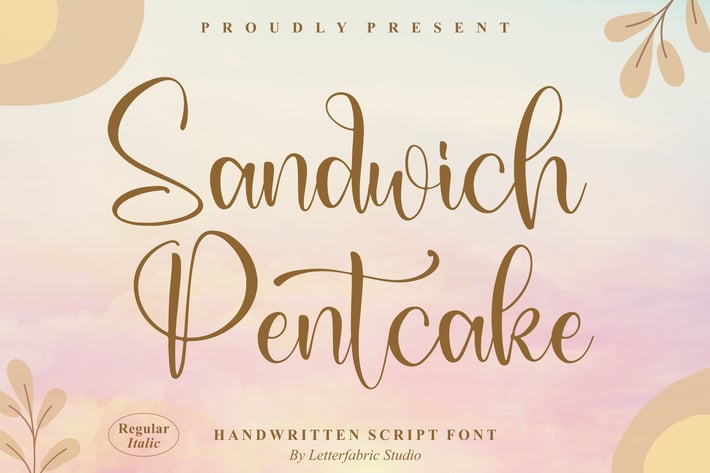
Sandwich Pentcake Handwritten Script Font
Sandwich Pentcake Handwritten Script Font is a fresh and charming script with smooth strokes and a modern handwritten style. Its elegant flow and versatile design make it perfect for adding warmth and sophistication to both digital and print projects.
+ Handwritten script style with natural curves
+ Includes Regular & Italic styles
+ Branding & logo design
+ Wedding invitations & stationer
+ Social media graphics
+ Posters & lifestyle projects
+ Greeting cards & promotional materials
Bring your ideas to life with Sandwich Pentcake – the handwritten script font that blends elegance with everyday charm.